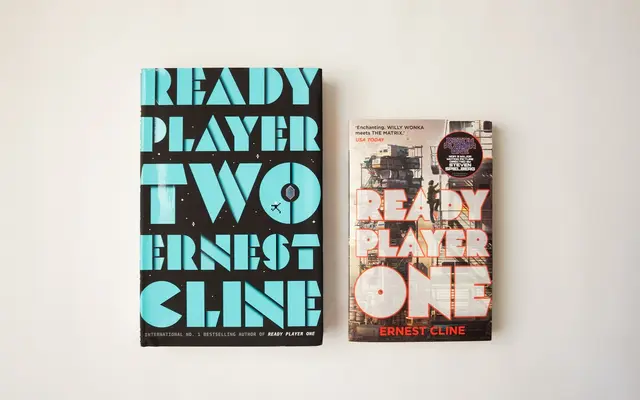
Mekon
The Northern Block · Peter Steiner · 1973
A remastered heavyweight display face derived from Peter Steiner's 1973 Black Body, built around circular Pac-Man forms and tight keyhole counters.
Digitised and expanded from Peter Steiner's Black Body of 1973, Mekon is a bold display type with a retro-geometric personality driven by circular counters and Pac-Man-like curves. Version 2.0 (2021) brings the typeface up to current technical standards, with over 460 characters across four styles including a gradient option. Suited to posters, book covers and apparel where a punchy, retro-flavoured weight is needed.
A heavyweight display type digitised from Peter Steiner's Black Body (1973), featuring Pac-Man-inspired circular shapes and keyhole counters that place it firmly in the display category with a retro-geometric character.